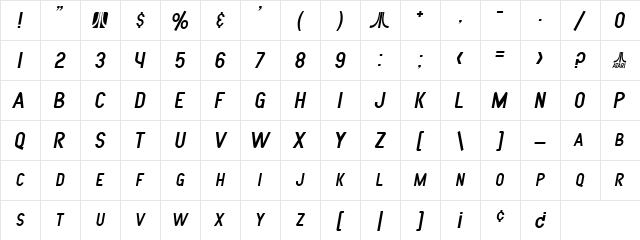
Complete SF Atarian System Italic glyph index. Displaying only characters natively supported by SF Atarian System Italic font.
SF Atarian System is a composed and adaptable typeface that performs quietly and consistently across a wide range of design contexts. The slanted form adds forward momentum and visual energy.